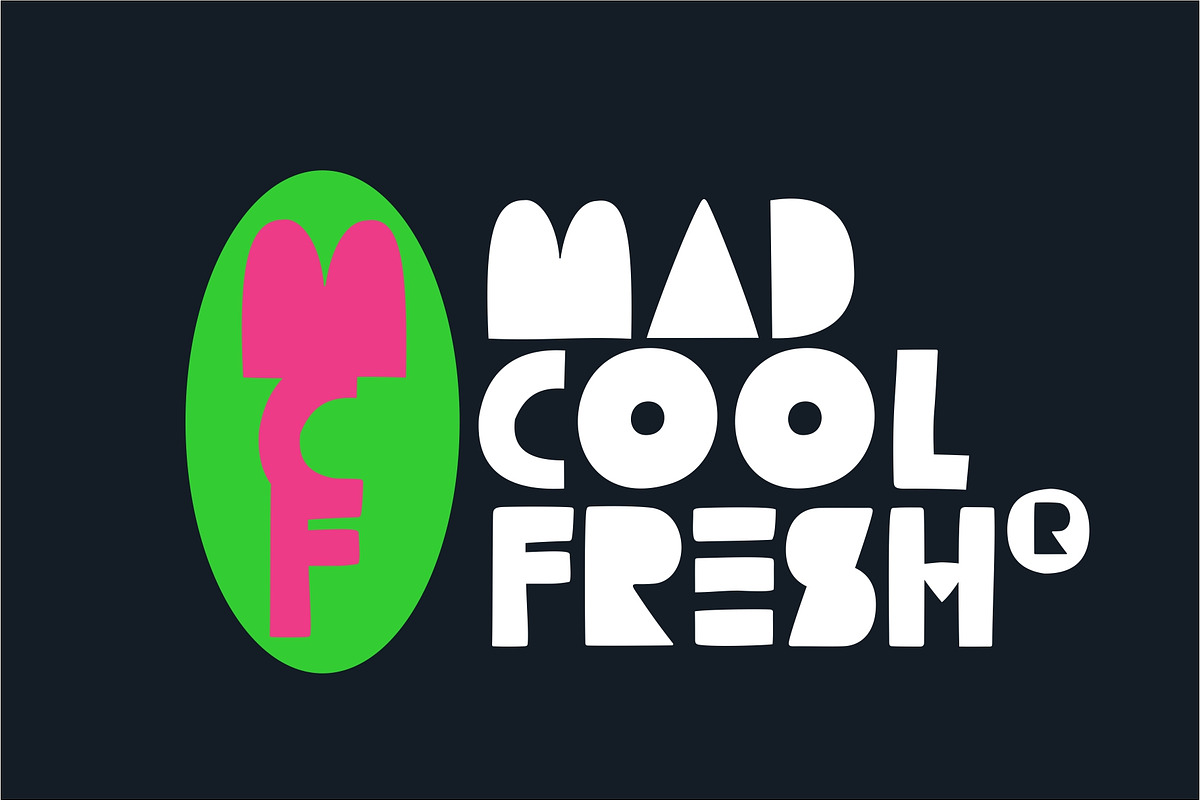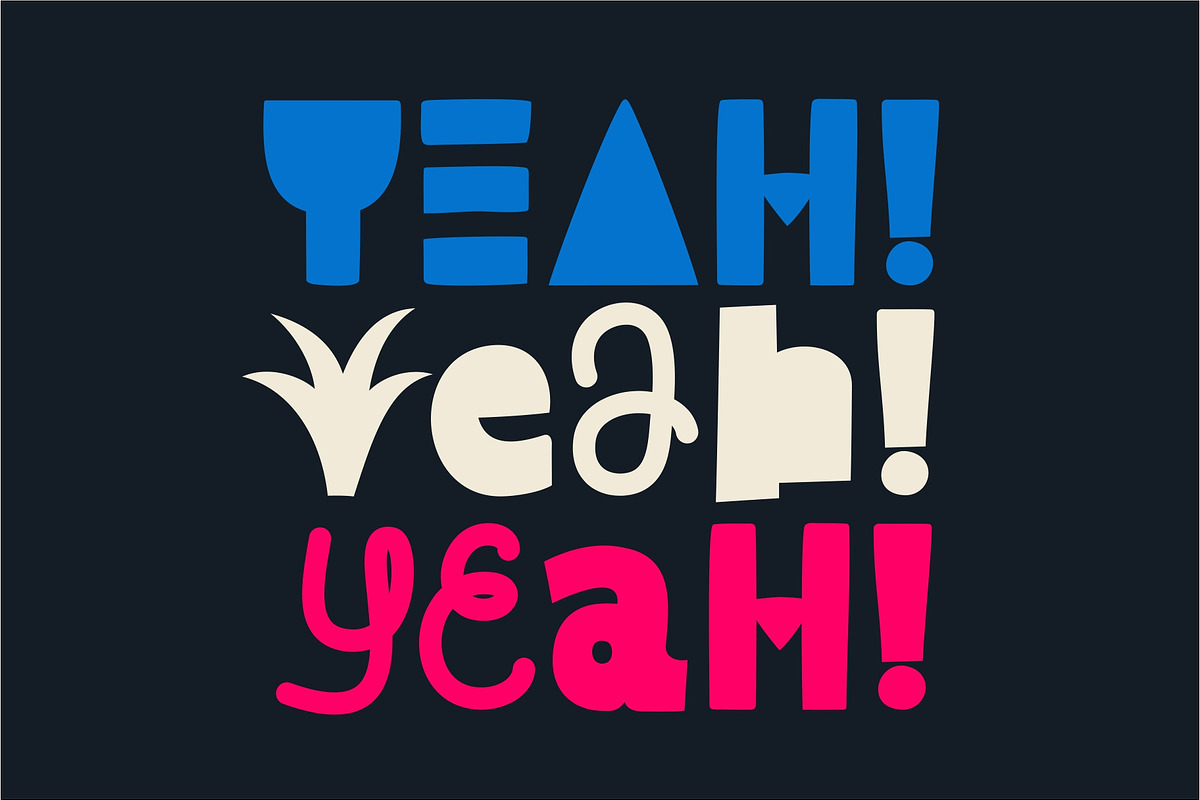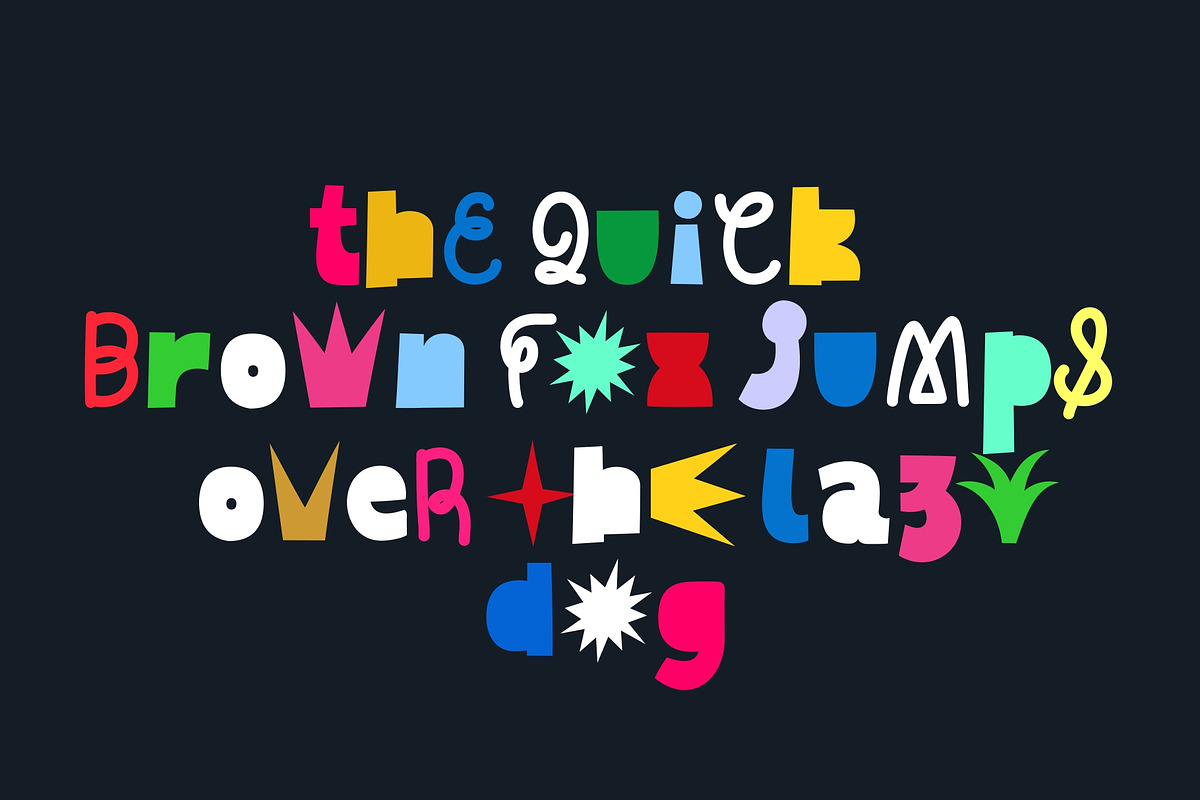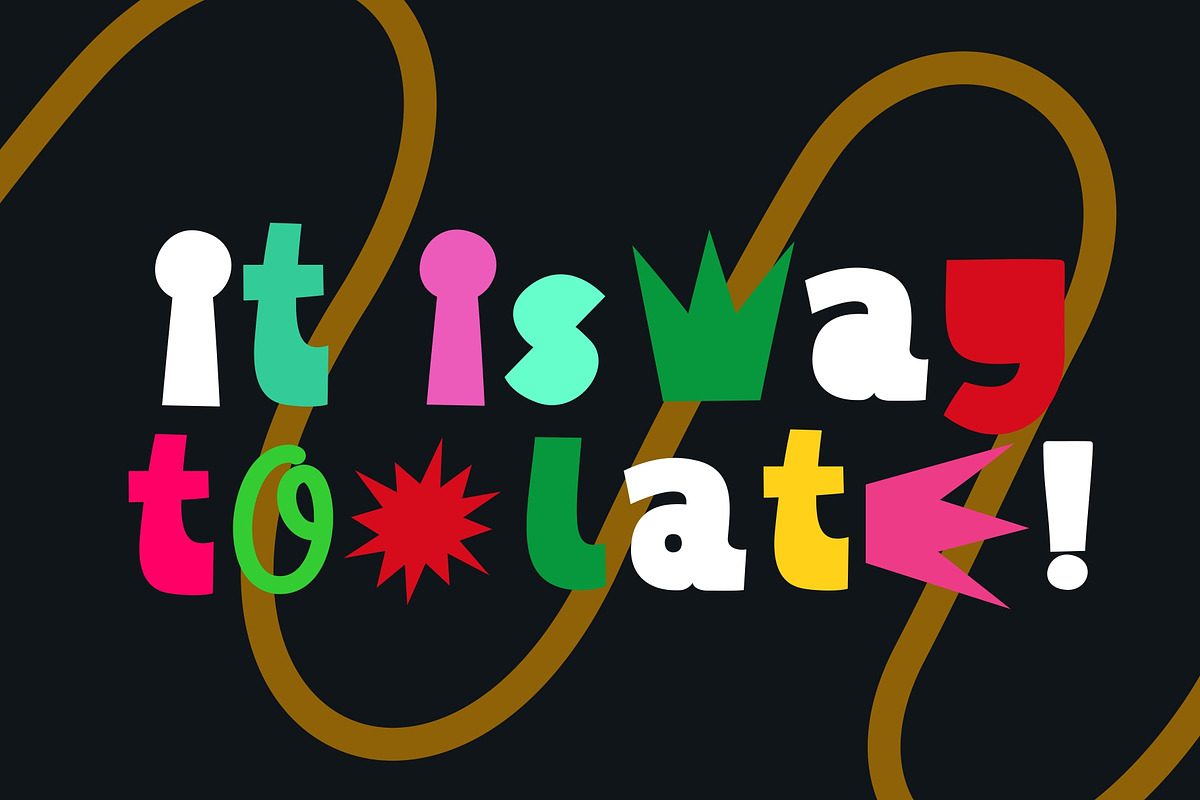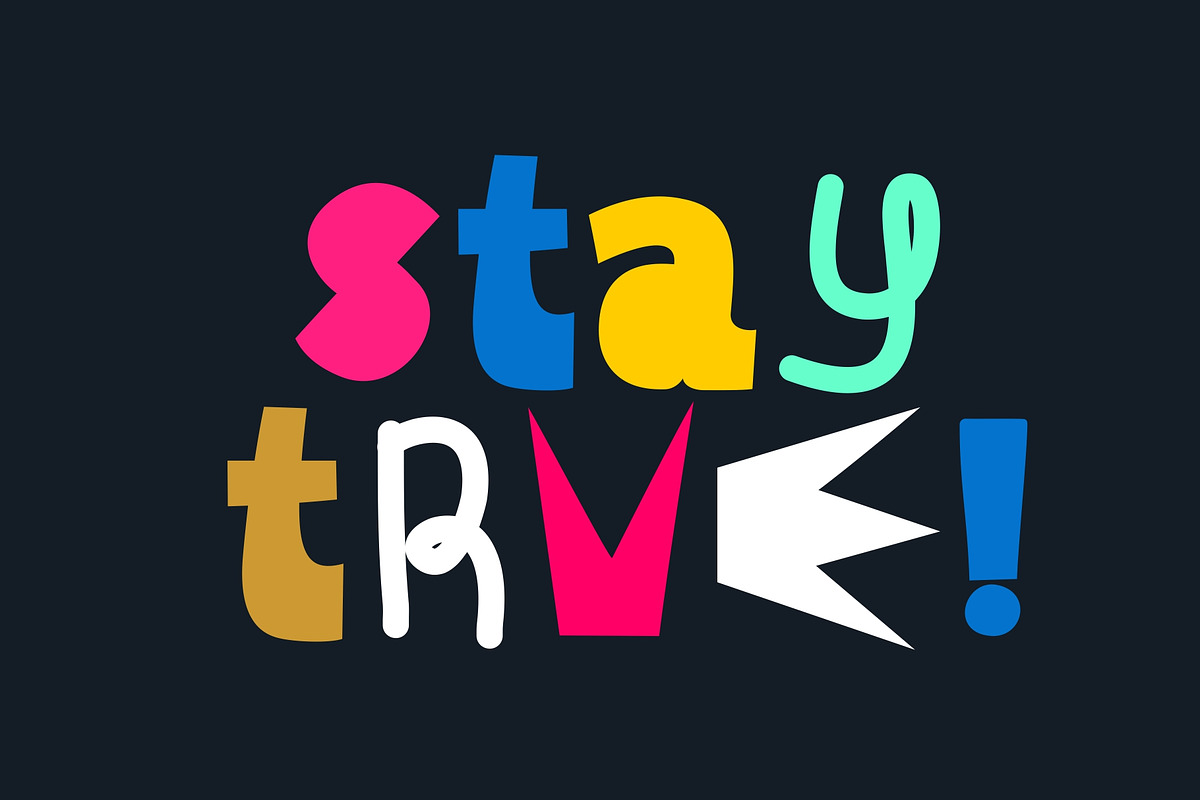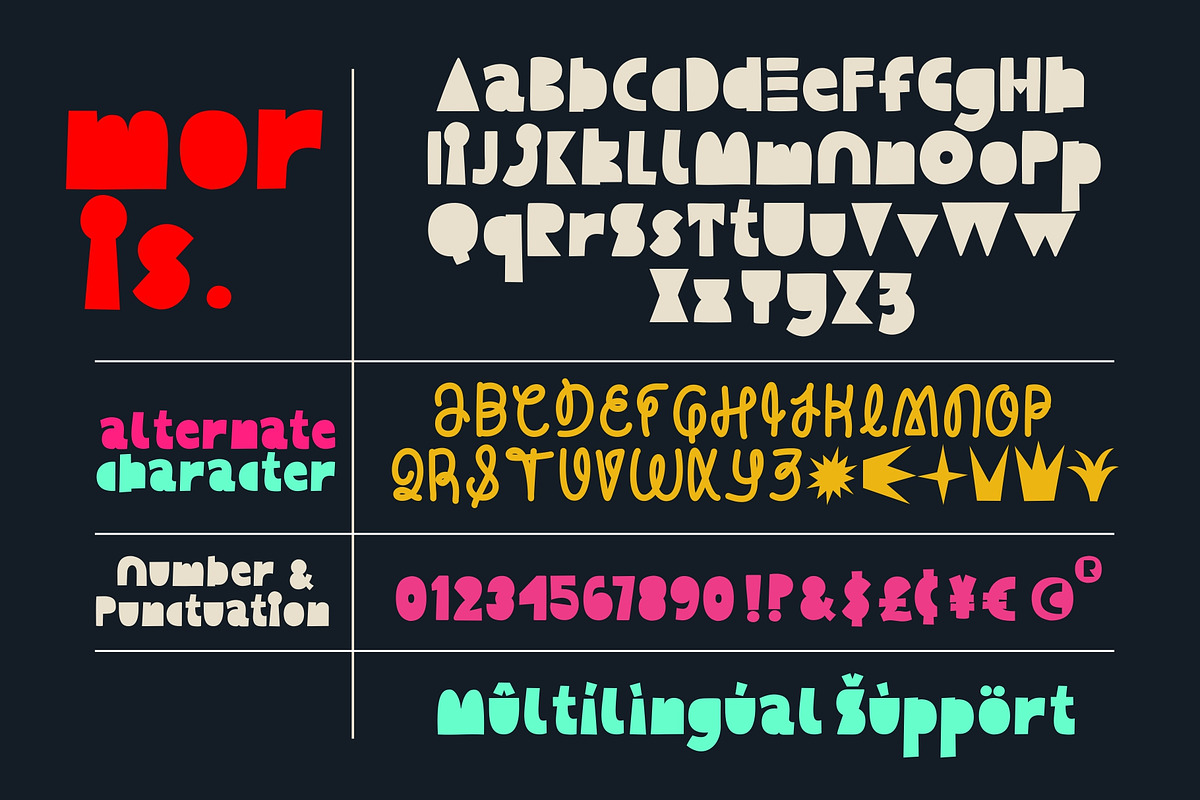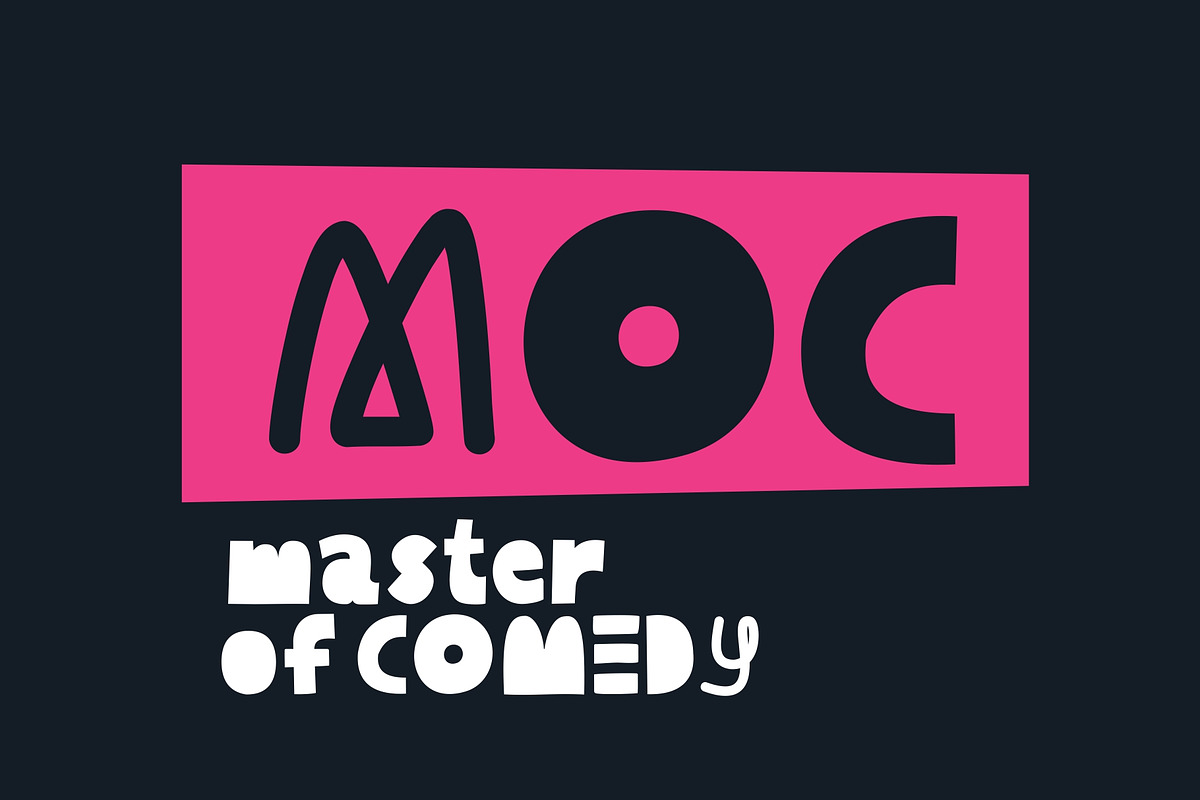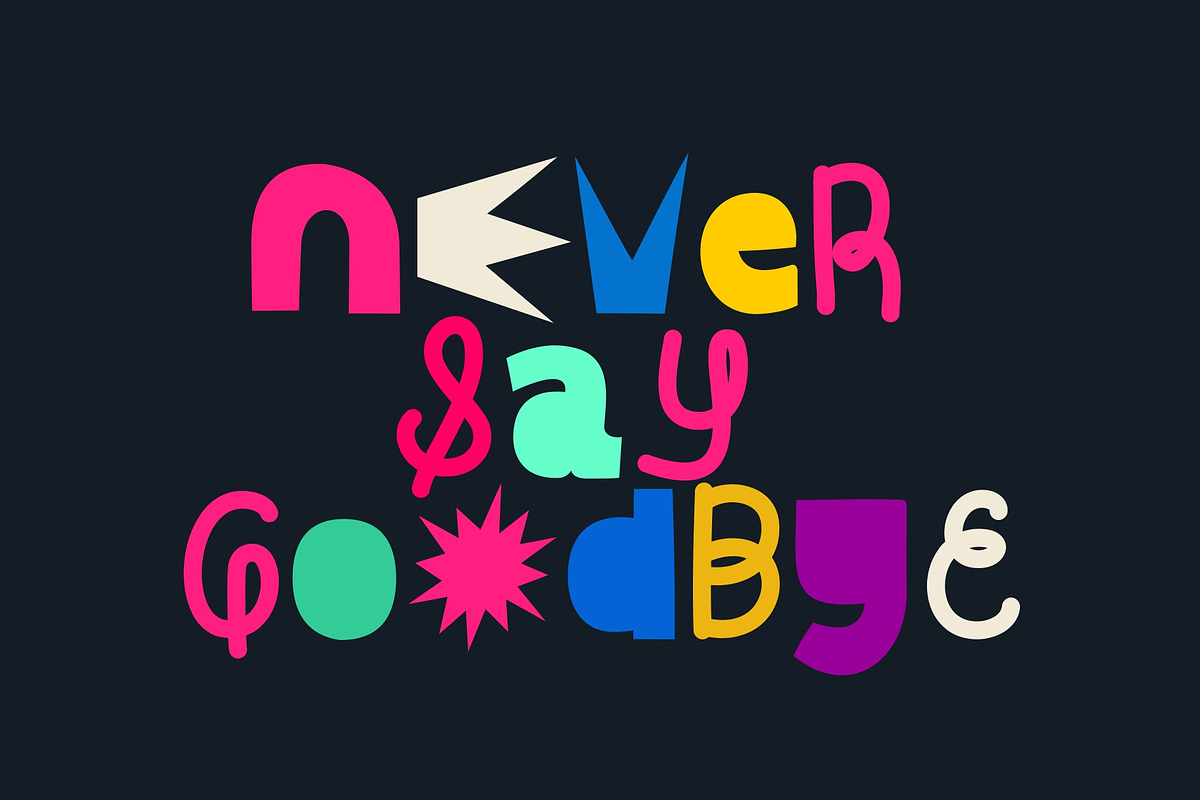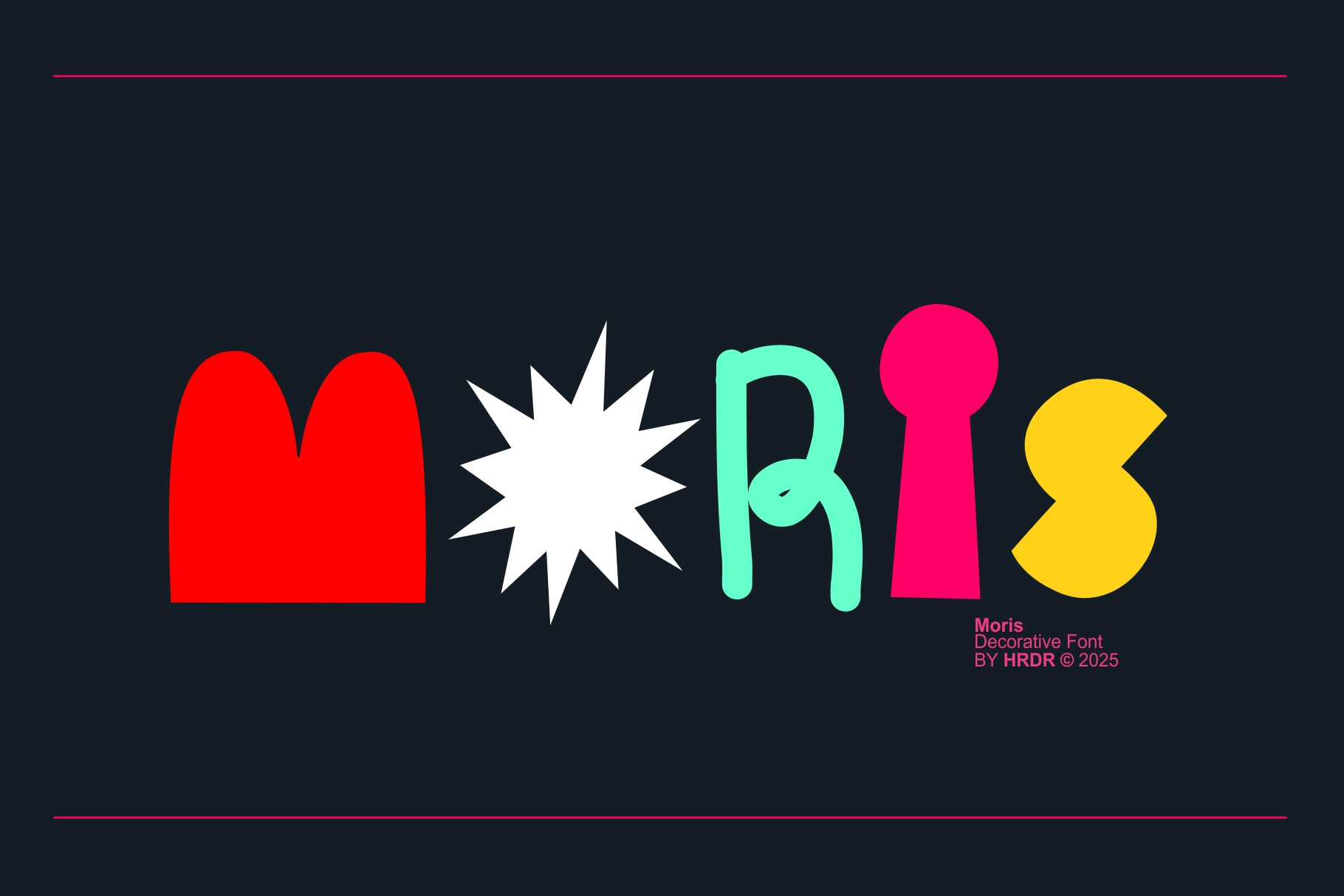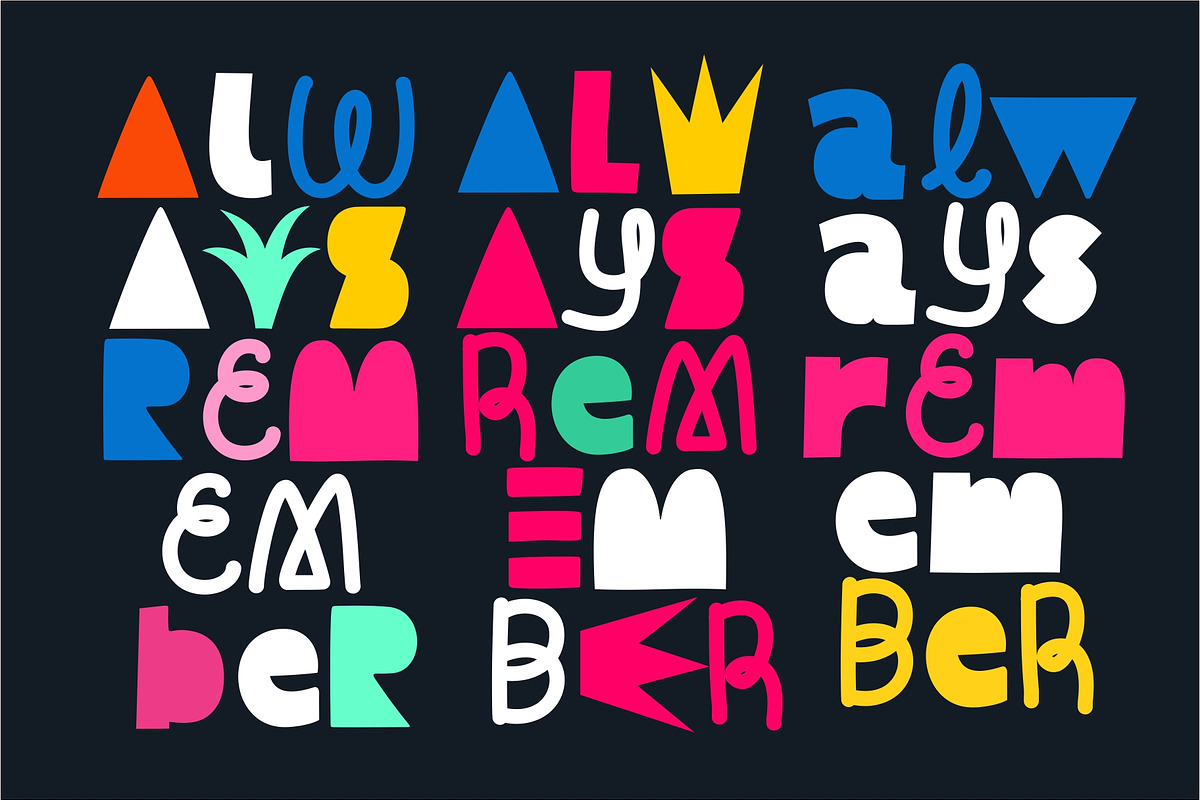
Moris - Decorative Font
Moris is a Decorative font that is modern, elegant and cool, this font looking elegant, classy, modern, stylish, up-to-date and easy to use. Moris meant for branding, It's great for Logo, headlines and titles, perfect for crafting, branding, invitation, stationery, wedding designs, social media posts, advertisements, product packaging, product designs, label, Posters, photography, special events, or anything.
- numeric & Multilingual support
- Stylistic Alternates with Ss01, Ss02 , Ss03
Moris is designed for branding, making it ideal for a variety of applications. Its versatility shines in:
- Logos, Headlines, and Titles – Enhances brand identity with a modern touch.
- Crafting and Branding – Perfect for creative projects and establishing a visual identity.
- Stationery and Wedding Designs – Adds a sophisticated flair to printed materials.
- Social Media and Advertisements – Engages audiences with a sleek appearance.
- Product Packaging and Labels – Ensures a polished and professional look.
- Posters and Photography – Complements artistic layouts and imagery.
- Special Events – Suitable for a range of event themes.